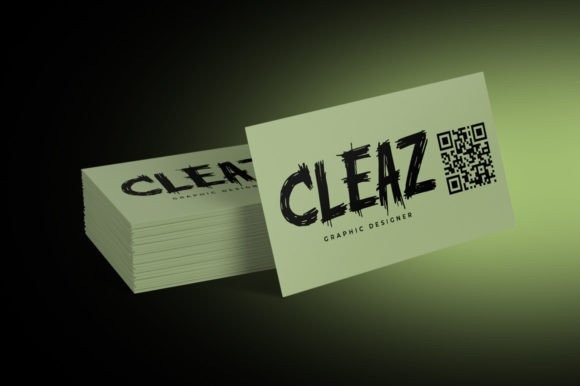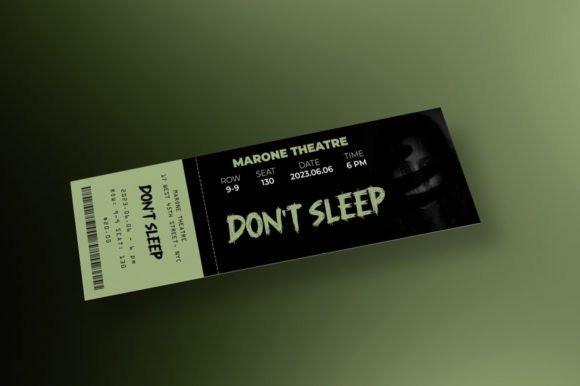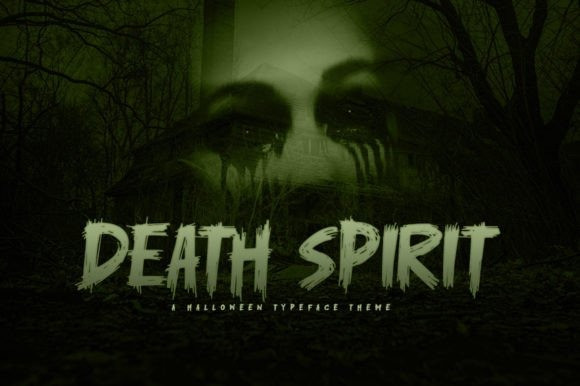
Death Spirit Font
Death Spirit Font a display horror font for your halloween project. Death Spirit font suitable for logo, branding, greeting card, branding, poster and any design that you create. It can easily be matched to an horror and halloween set of projects, so add it to your creative ideas and notice how it makes them stand out!